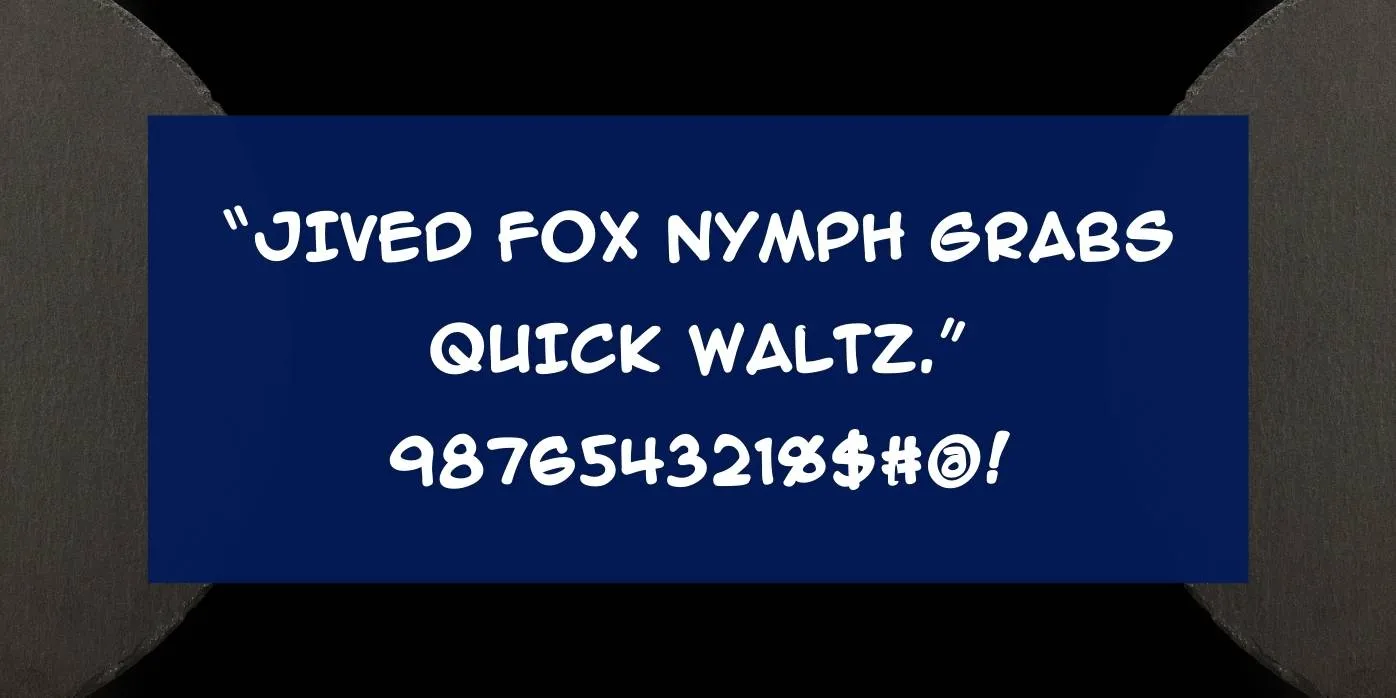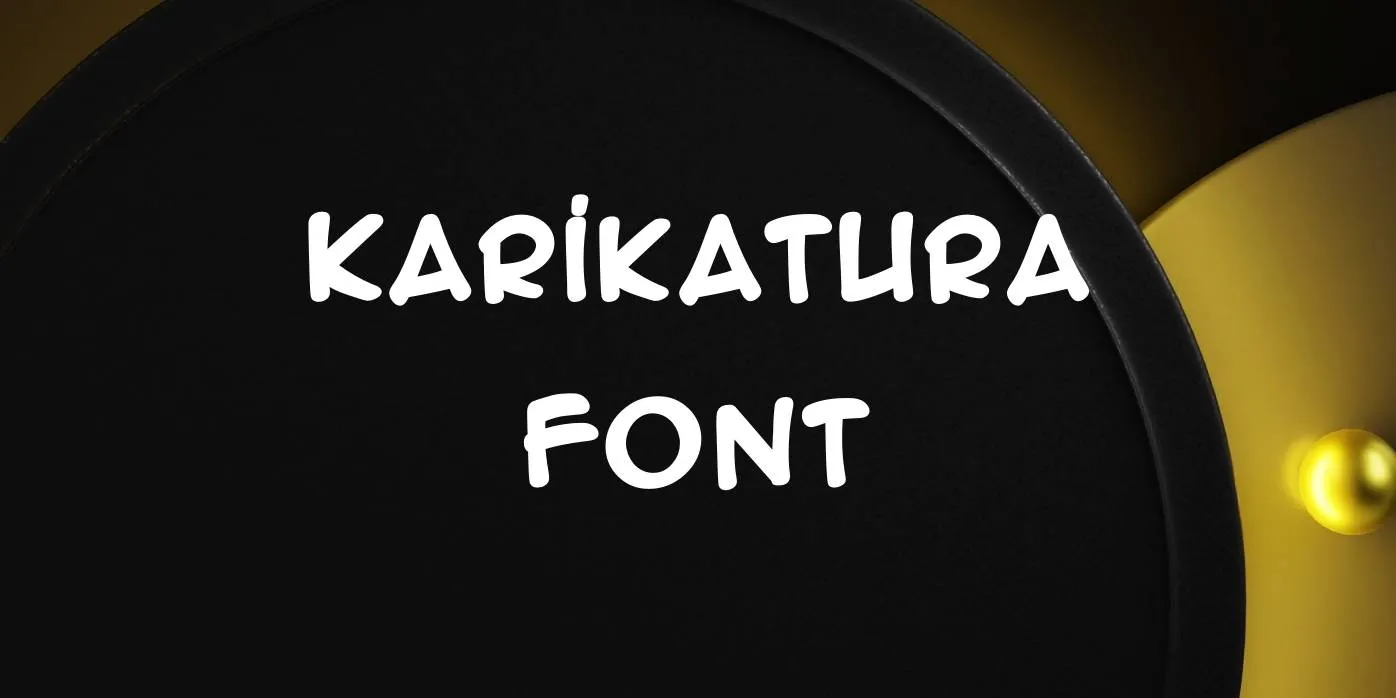
Karikatura Font
Karikatura Font is a popular handwritten font that was created in the early 20th century. The font was designed by Swiss graphic designer Max Miedinger. Karikatura Font is often used for headlines and other display purposes. This font has a unique history that was originally designed for a German newspaper.
However, the font was not used by the newspaper and Miedinger was not paid for his work. Miedinger then sold the font to a type foundry, where it became popular. This Font is known for its clean lines and simple shapes. The font is easy to read and has a timeless appeal.